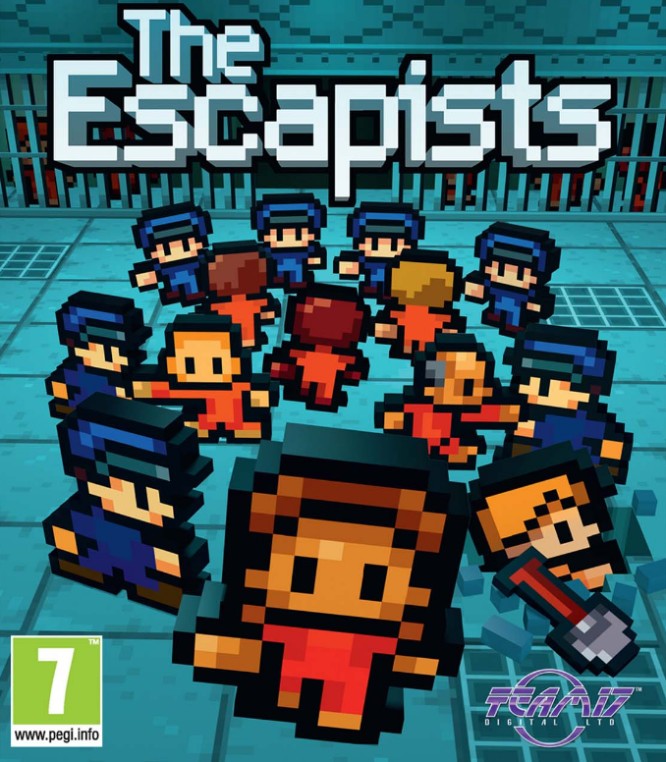
The Escapists Font
Fonts in UseThe Escapists is a strategy simulation game where players assume the role of a prisoner, planning and executing elaborate escape plans to break free from various prisons while avoiding detection and following the prison routine.
The Escapists' logo features Ray Larabie's Algol font, a bitmap font family consisting of Algol Regular, Algol VII, and Algol IX. More details about the font family are available here.